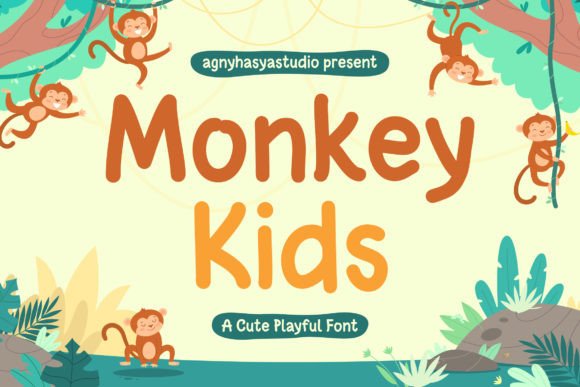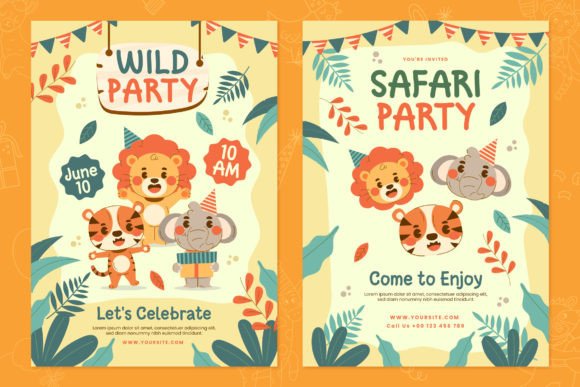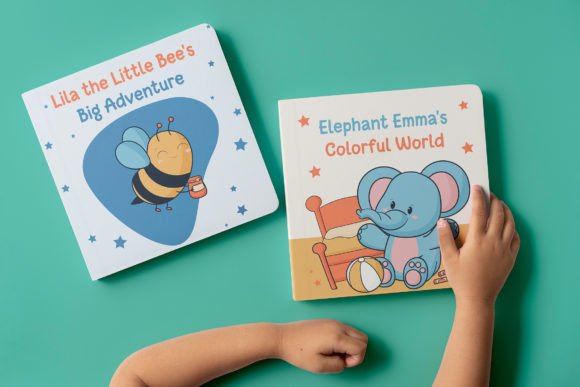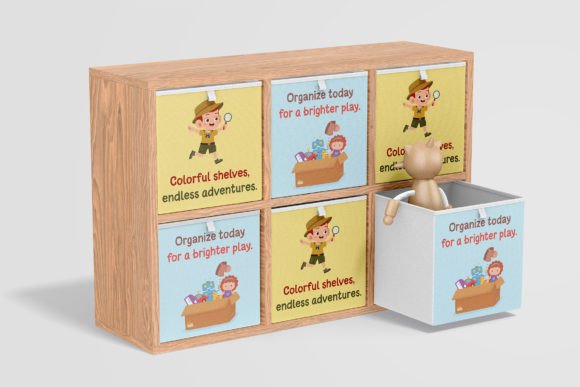
Monkey Kids Font: A Cute Display Font for Playful DIY Projects
About the Monkey Kids Font
Introducing the Monkey Kids Font, a beautifully crafted typeface designed to elevate your creative projects. Proudly Present **Monkey Kids – A Playful Font**
**Monkey Kids** is a Playful, Fun, and Cute Typeface. Come in 2 (two) styles (regular & slant) and is created with some alternate and ligature.
Perfect for your design projects like Children or School Projects, Branding, Advertising, Product Designs, Magazine Designs, Book/Cover Title Designs, Art Quotes, Special Events, Labels, Product Packaging, and more.
Monkey Kids’ playful, rounded forms are ideal for children’s books, branding for playful products, and eye-catching headlines. Its energetic style also works well on packaging, posters, and short, impactful marketing materials. Avoid using it for lengthy body text or UI elements where readability is paramount; the playful nature may hinder legibility in large blocks of text.
Consider pairing Monkey Kids with a clean sans-serif like Open Sans for a balanced contrast, or a classic serif such as Garamond for a sophisticated yet approachable feel. For a more whimsical approach, a script font with a similar level of friendliness could also be effective.
The font’s overall personality is best described as cheerful and approachable, conveying a sense of fun and youthful energy. This makes it a strong choice for brands targeting a young audience or those wishing to project a lighthearted and friendly image.
Monkey Kids Font Usage Examples
Monkey Kids Font Example